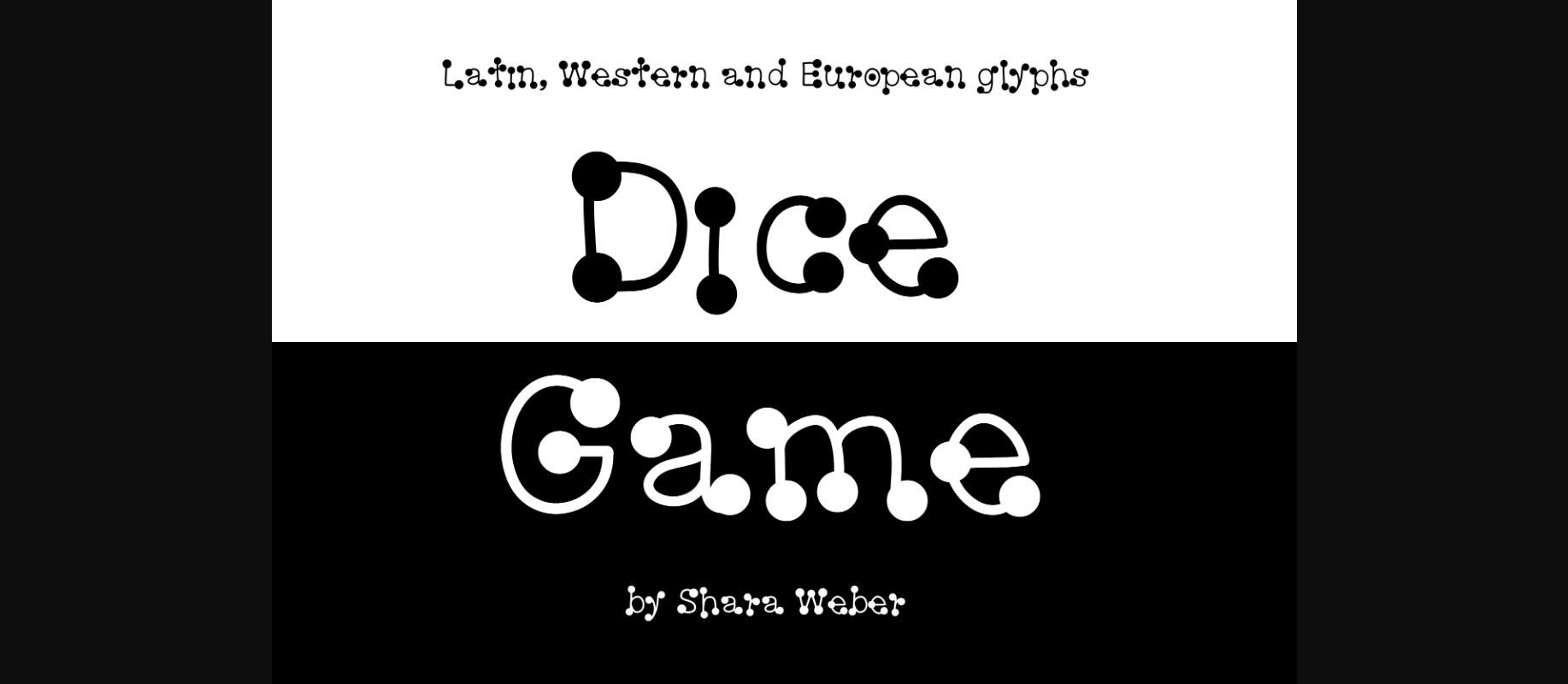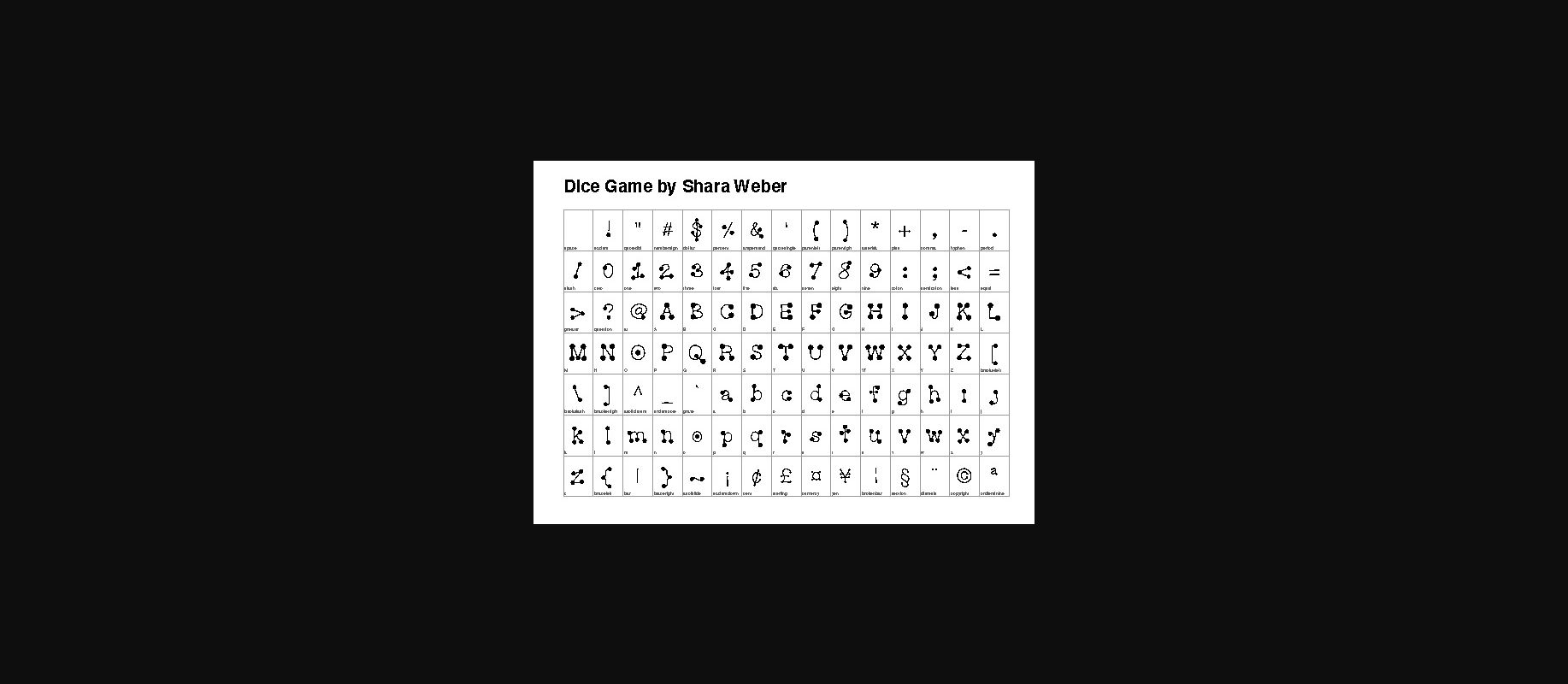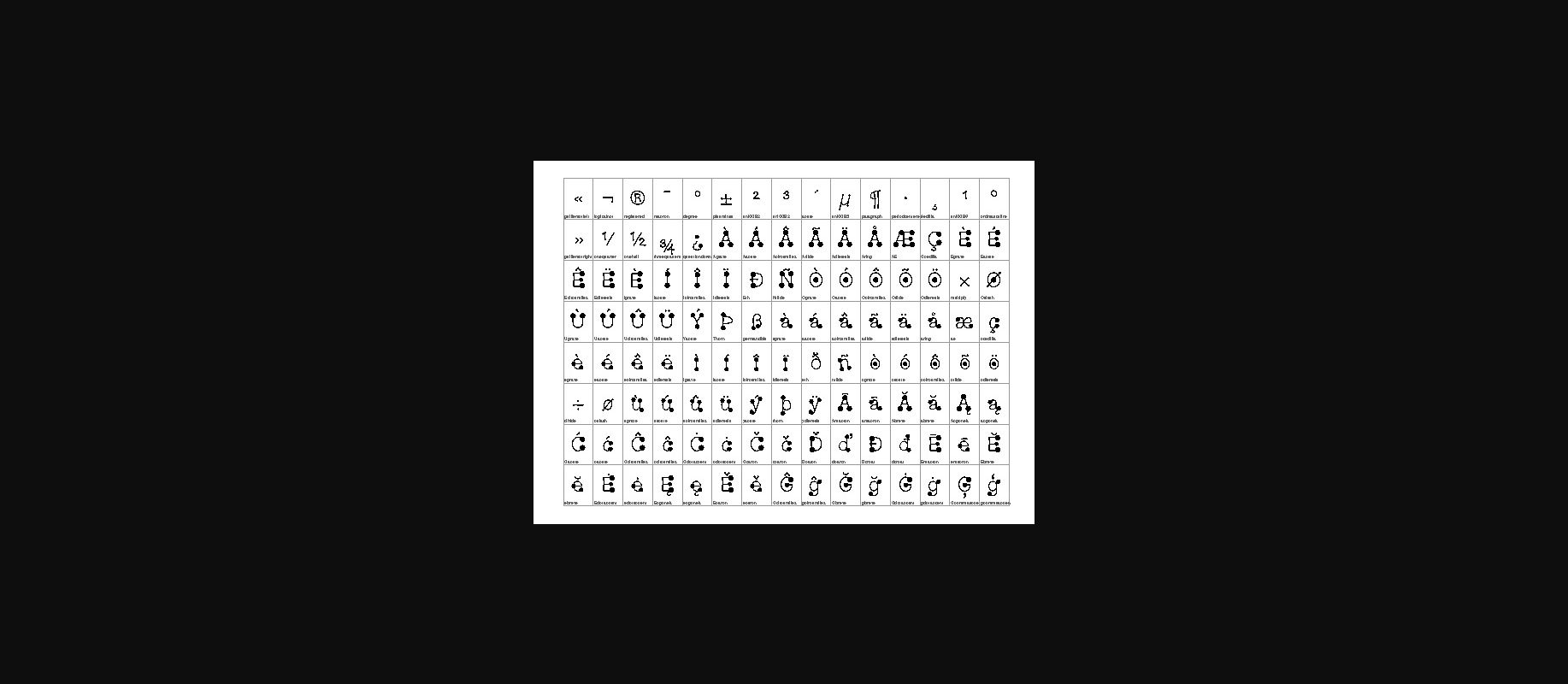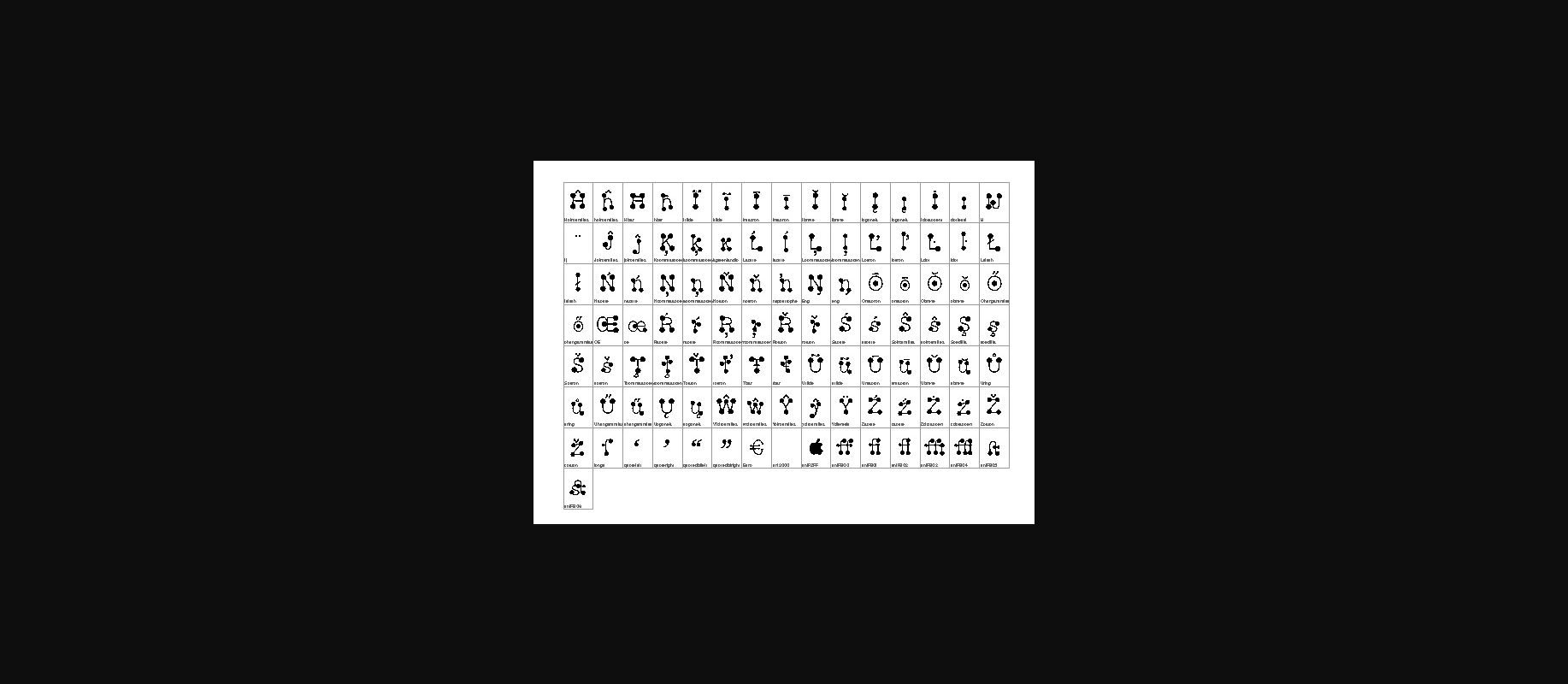
Dice Game Font
About Dice Game Font
Dice Game is a playful and unique decorative font. Featuring a simple and quirky style, this font has the potential to bring each of your creative ideas to the highest level!